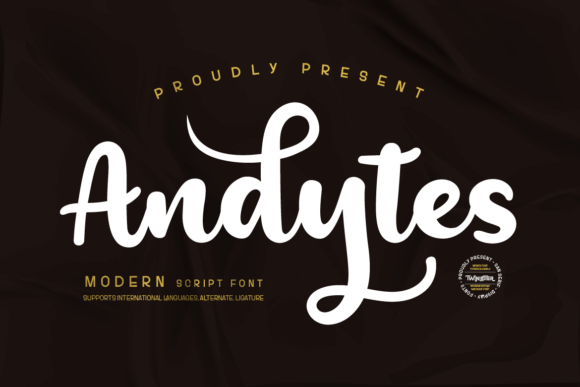
The Perfect Blend of Nostalgia and Style: Unveiling the Andytes Font
There’s something magical about stumbling upon the perfect font that elevates your design from ordinary to extraordinary. You’re brainstorming ideas for a new project, flipping through font options, and suddenly, it hits you – the perfect combination of style and character that makes your design truly stand out. For designers, this moment is pure bliss, and the Andytes Font is one of those rare finds that can give your headlines and logotype projects a stylish touch.
The Andytes Font is a gorgeous and bold handwritten font that reads as strong, confident, and dynamic. Crafted with care, it adds tons of nostalgic character to your designs, making it a valuable asset for any designer looking to add a unique touch to their work. With its PUA encoding, you can access all of the glyphs and swashes with ease, giving you the freedom to get creative and experiment with different designs.
- Unique Characteristics: The font features a unique blend of modern and vintage elements, with intricate details and subtle textures that add depth and visual interest to any design.
Designer Review: Andytes Font
I recently had the chance to work with the Andytes Font, and here’s my honest review.
The Andytes Font has a unique, hand-drawn feel that sets it apart from more traditional fonts. I appreciate the attention to detail in its subtle flourishes and imperfections, which add a touch of character to any design. The font is also surprisingly versatile, working well in both body text and display settings.
- Unique, hand-drawn feel
- Subtle flourishes and imperfections add character
- Versatile, works well in body text and display settings
While the Andytes Font is a great addition to any design toolkit, there are a few limitations to be aware of. The font’s irregularities can sometimes make it difficult to read, particularly at smaller sizes. Additionally, the font’s unique feel may not be suitable for all design projects, such as those requiring a more formal or traditional aesthetic.
- Can be difficult to read at smaller sizes
- Not suitable for all design projects
The Andytes Font is a solid choice for designers looking to add some personality to their work. While it may have its limitations, the font’s unique feel and versatility make it a great addition to any design toolkit.
Andytes Font is ideal for:
- Creating elegant and sophisticated designs.
- Adding a touch of vintage charm to your designs.
- Using as a title or header font.
Remember to use the font in moderation and balance it with other fonts to avoid overwhelming the design.